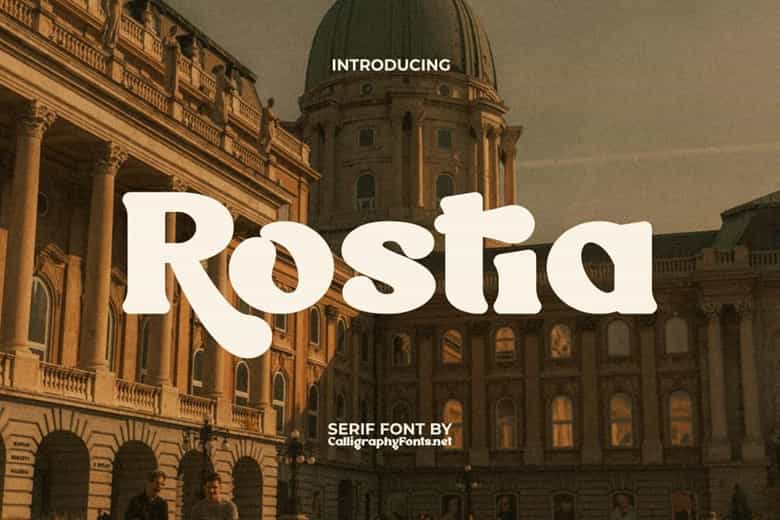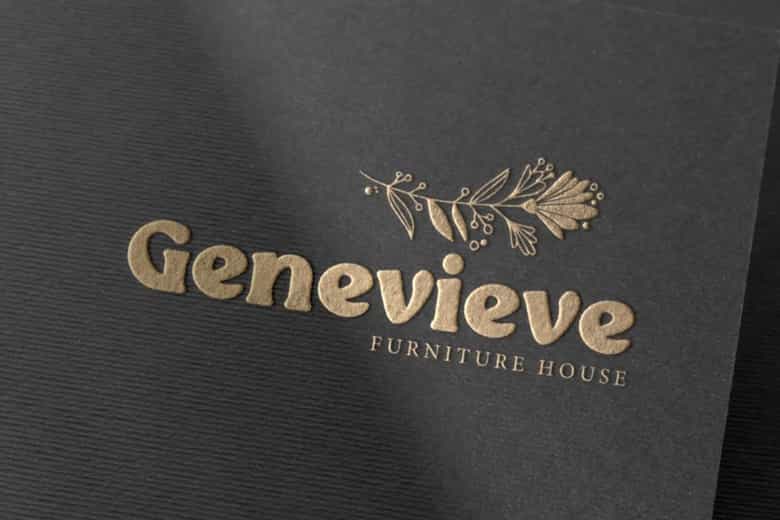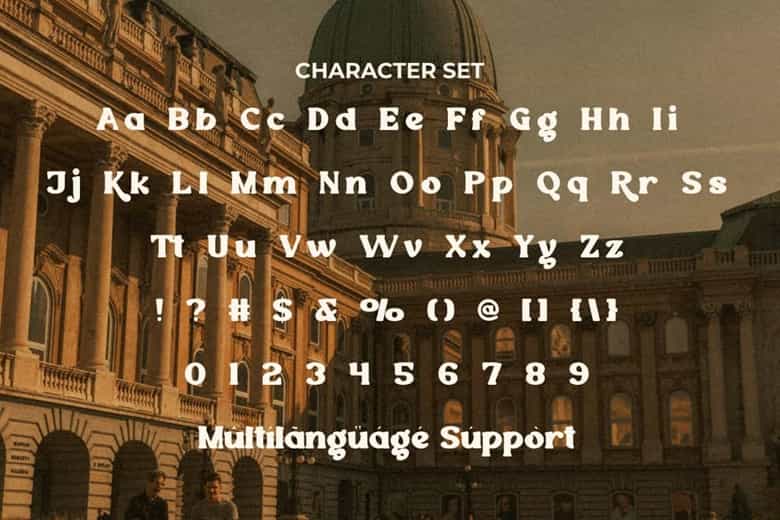
Rostia is a modern retro serif font inspired by a combination of a modern style by applying emboldened serifs on each character and comes with ligatures that perfectly fit the styles that hail from the retro age. It will be perfect for branding logos, brochures, embossed design, greetings cards, heading tag, headers, label, logotype, menu, mockups, paper bags, posters, print media, quotes, signage boards, structure templates, titles etc.